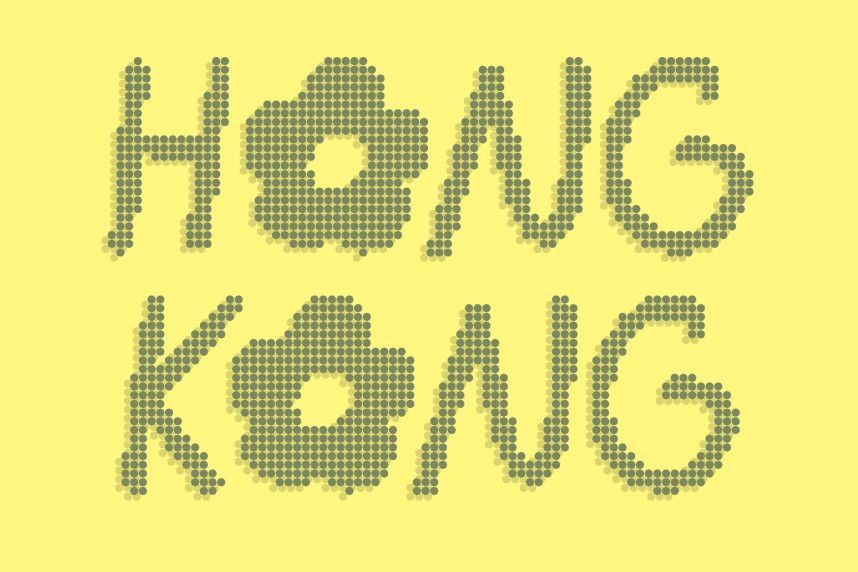
CS Roche Disco Font
CS Roche Disco Font – Playful Dot Handwritten Font with Cheerful Energy Fun Handwritten Style with Disco Sparkle. This transforms the lively handwritten font into a vibrant dotted display style inspired by the glowing lights and festive spirit of the disco era. Each letter is built from small circular dots, creating a playful texture that feels energetic, cheerful, and full of movement. This dotted structure enhances the friendly handwritten charm while adding a sparkling party-like atmosphere.